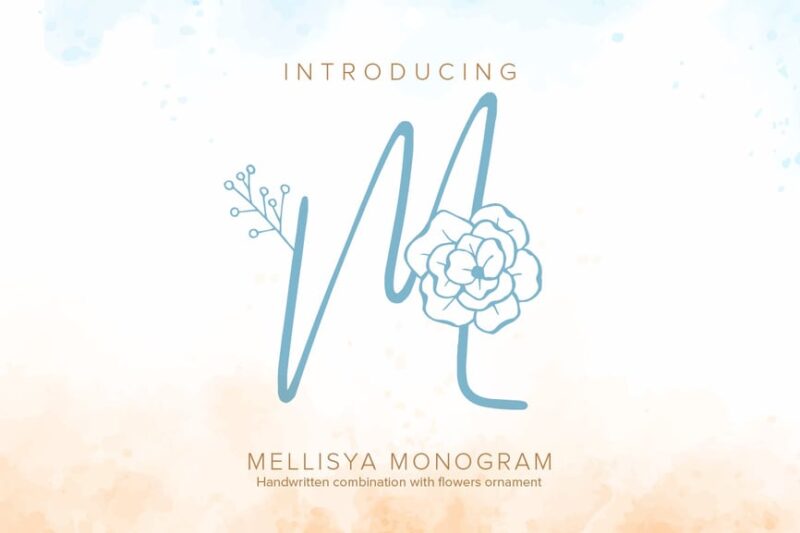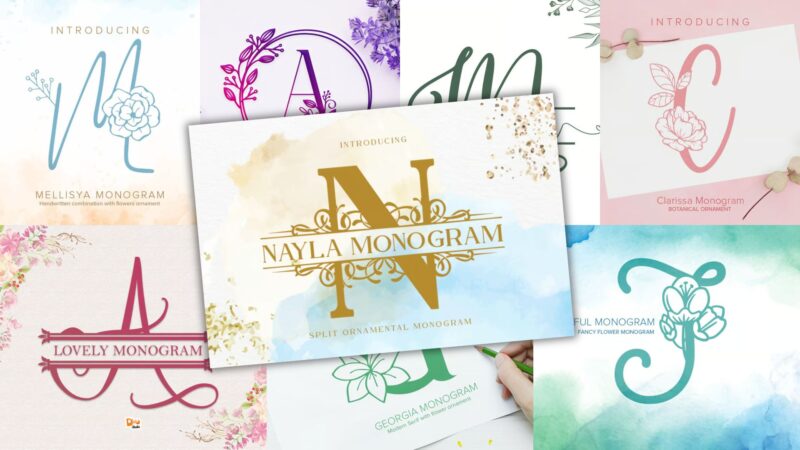
In this comprehensive guide, we’ll explore the most elegant monogram fonts available in 2026, dive into what makes them so captivating, and discover how to use them effectively in your own designs. So grab your favorite design software, and let’s embark on this typographic journey together!
The Most Luxurious Monogram Fonts of 2026
Not all monogram fonts are created equal. Some whisper elegance, while others practically shout sophistication. I’ve curated a collection of the most stunning monogram fonts that are making waves in 2026. Here are my top picks:
Mellysia Monogram
Mellysia Monogram is a decorative font featuring elegant and modern monogram designs. It’s perfect for creating sophisticated logos, invitations, and branding materials that require a touch of luxury and personalization.
Art Deco Monogram Font
This Art Deco-inspired monogram font combines sans-serif simplicity with vintage glamour. Ideal for invitations and branding projects, it offers a classic yet stylish approach to monogram design with a nod to the roaring twenties.
Monogram Handrawn Leaves
Monogram Handrawn Leaves is a decorative font that blends floral elements with monogram designs. This font is perfect for creating nature-inspired wedding logos, wedding stationery, and organic branding materials with a handcrafted feel.
Monogram Holder – Display Font
Monogram Holder is a serif display font designed specifically for creating striking monograms. Its decorative style makes it ideal for logos, initials on products, and personalized designs that demand attention and sophistication.
WAW Monogram Font
WAW Monogram Font is a script-based decorative font featuring swirling, elaborate designs. It’s perfect for creating luxurious and ornate monograms for high-end branding, wedding invitations, and personalized stationery.
Lodge Script
Lodge Script is a versatile font combining sans-serif, script, and decorative styles with a rustic touch. It’s perfect for creating logos, signage, and branding materials for outdoor-themed businesses, craft breweries, or artisanal products.
Wind Garden
Wind Garden is a decorative font designed for creating unique monograms and business branding. Its flowing, organic forms make it suitable for nature-inspired designs, spa and wellness branding, or eco-friendly product packaging.
Olivia James
Olivia James is an elegant script and decorative font perfect for monogram designs. Its graceful curves and flourishes make it ideal for wedding invitations, luxury branding, and high-end product packaging that require a touch of sophistication.
Clarissa Monogram
Clarissa Monogram is a modern decorative font featuring clean lines and stylish designs. It’s excellent for creating contemporary logos, fashion branding, and sleek monograms that blend simplicity with a touch of elegance.
Lovely Monogram
Lovely Monogram is a charming script and decorative font designed for business branding. Its playful yet professional style makes it perfect for creating personalized logos, wedding-related designs, and boutique branding materials.
Monogram Valentine Font
This decorative script font is designed with love-themed ornaments, perfect for Valentine’s Day projects. It’s ideal for creating romantic monograms, wedding invitations, and love-themed branding materials with a whimsical touch.
Starlove Monogram Font
Starlove Monogram Font is a decorative typeface featuring star-shaped designs. It’s ideal for creating eye-catching logos, event branding, and celestial-themed monograms that blend whimsy with sophistication.
Wedding Heart Monogram Font
This decorative script font incorporates heart shapes into its monogram designs. Perfect for wedding-related projects, it’s ideal for creating romantic logos, invitations, and personalized wedding favors with a touch of love.
Dellina Monogram
Dellina Monogram is a modern decorative font featuring clean, stylish monogram designs. It’s excellent for creating contemporary logos, fashion branding, and sleek personalized products that require a touch of sophistication.
Monogram Handrawn Floral Font
This decorative font combines hand-drawn floral elements with monogram designs. It’s perfect for creating nature-inspired logos, wedding stationery, and organic branding materials that require a delicate, artistic touch.
Georgia Monogram
Georgia Monogram is a modern decorative font featuring elegant monogram designs. It’s ideal for creating sophisticated logos, personalized stationery, and high-end branding materials that blend contemporary style with classic charm.
As you experiment with these elegant typefaces, keep in mind the principles we’ve discussed: balance, legibility, appropriate application, and respect for the font’s inherent character. With these guidelines in mind, you’ll be creating stunning monogram designs that stand the test of time.
So go ahead, choose your favorite monogram font from our curated collection, and start creating designs that whisper sophistication and elegance. After all, in a world full of generic typography, a beautiful monogram is like a signature – uniquely yours and absolutely unforgettable.